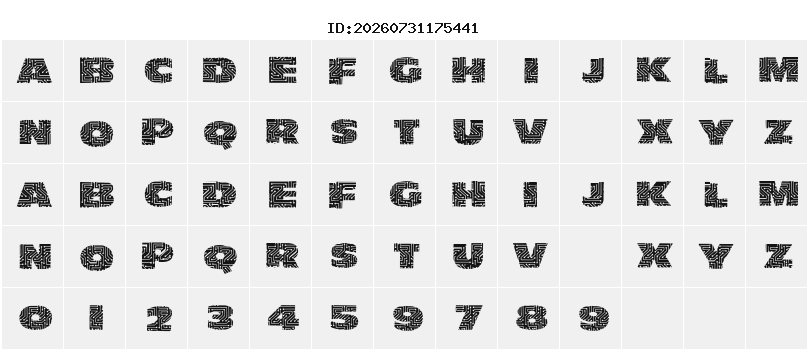
LeiterplattenSans.ttf is a modern, elegant sans-serif font designed for ultimate readability and visual harmony. Perfect for branding, headlines, web design, and print materials.